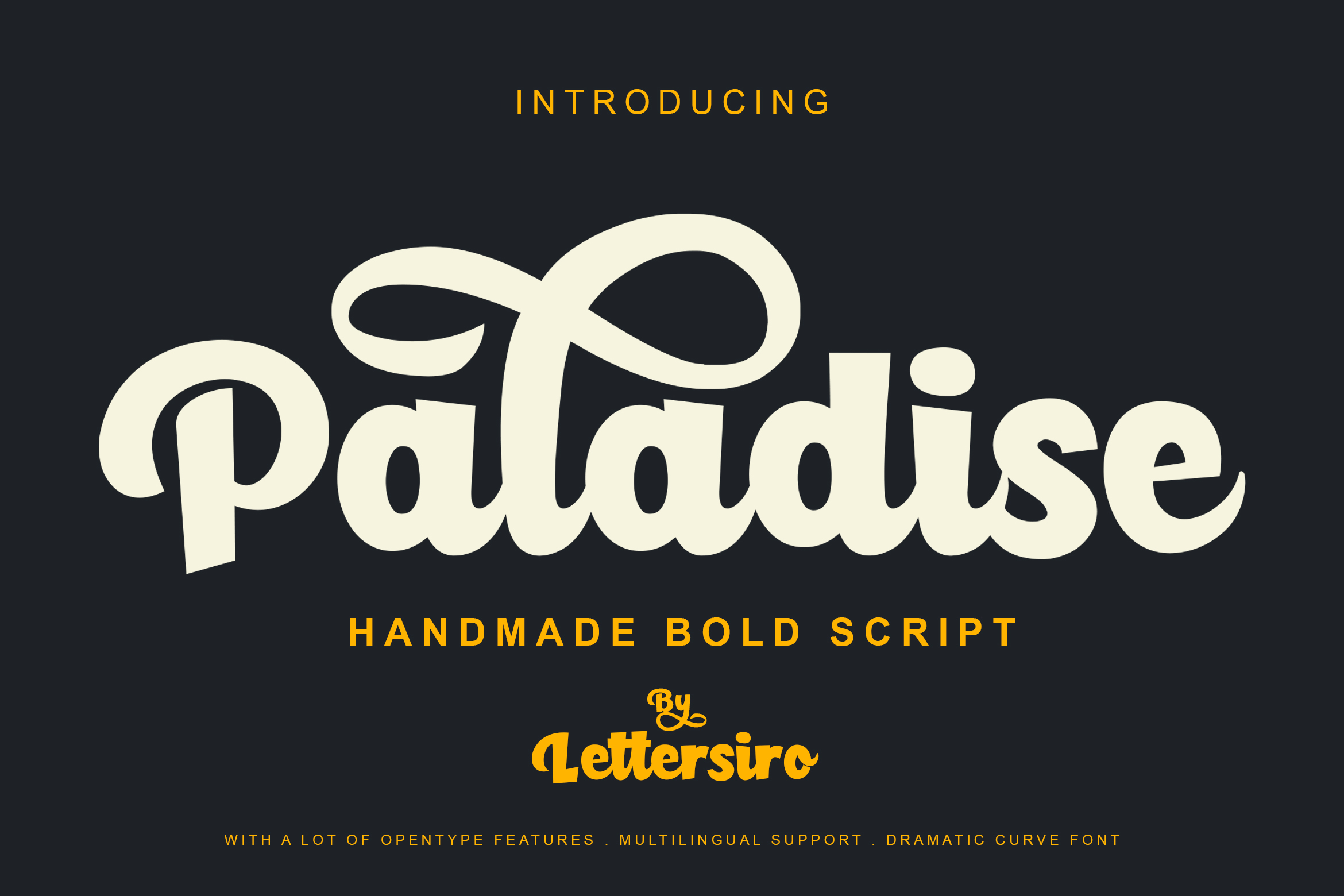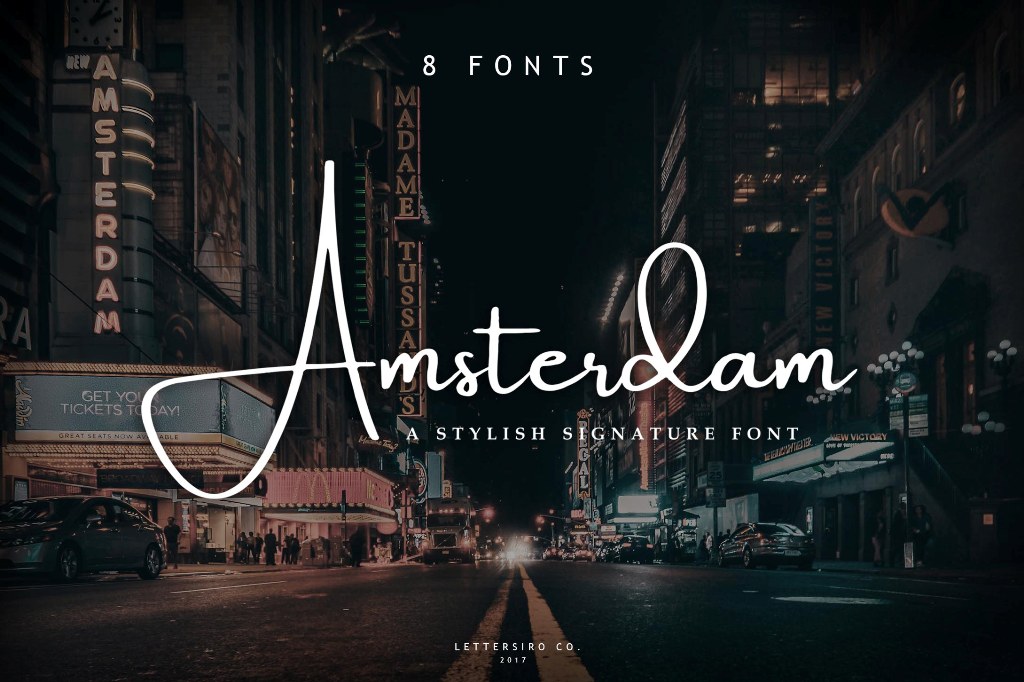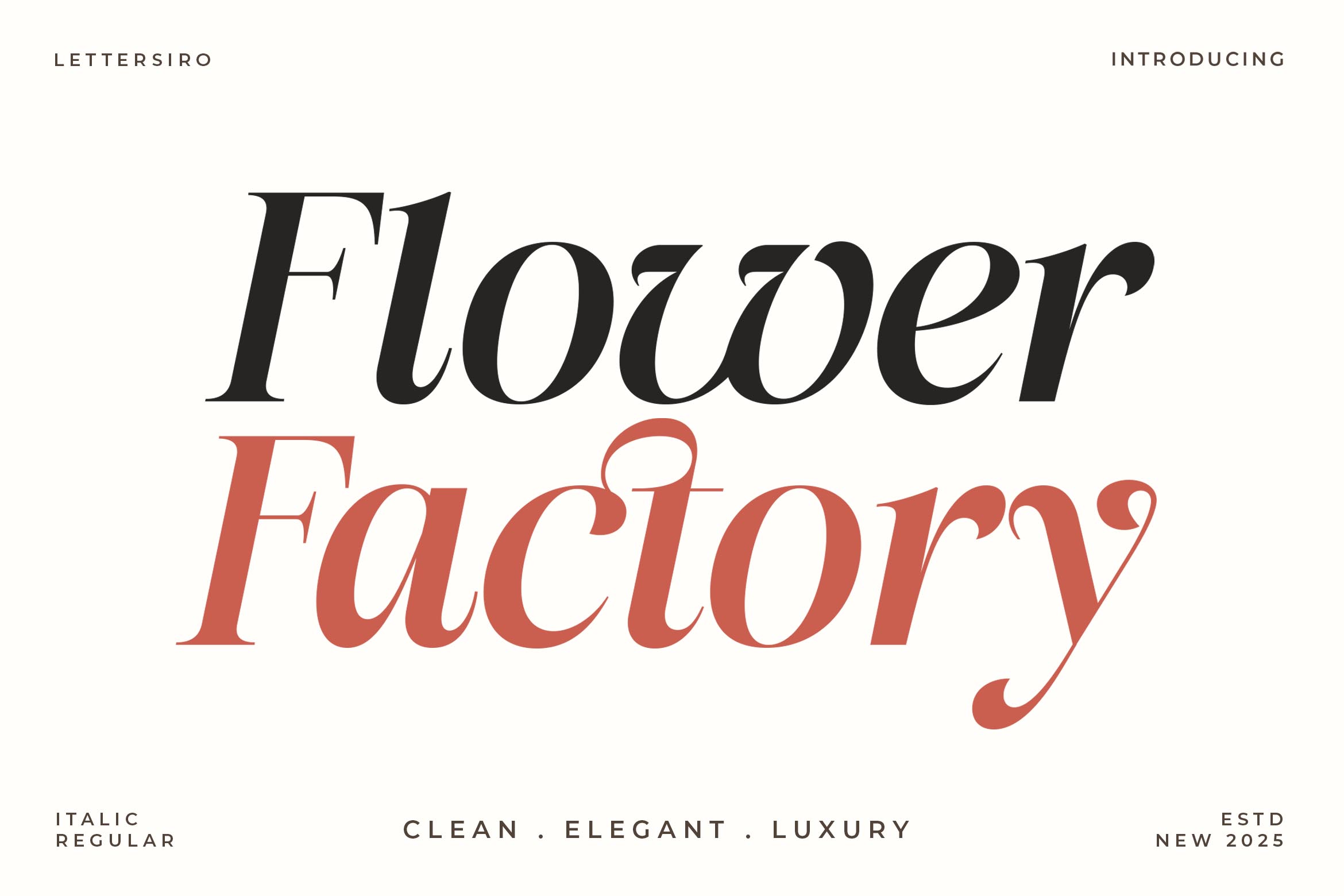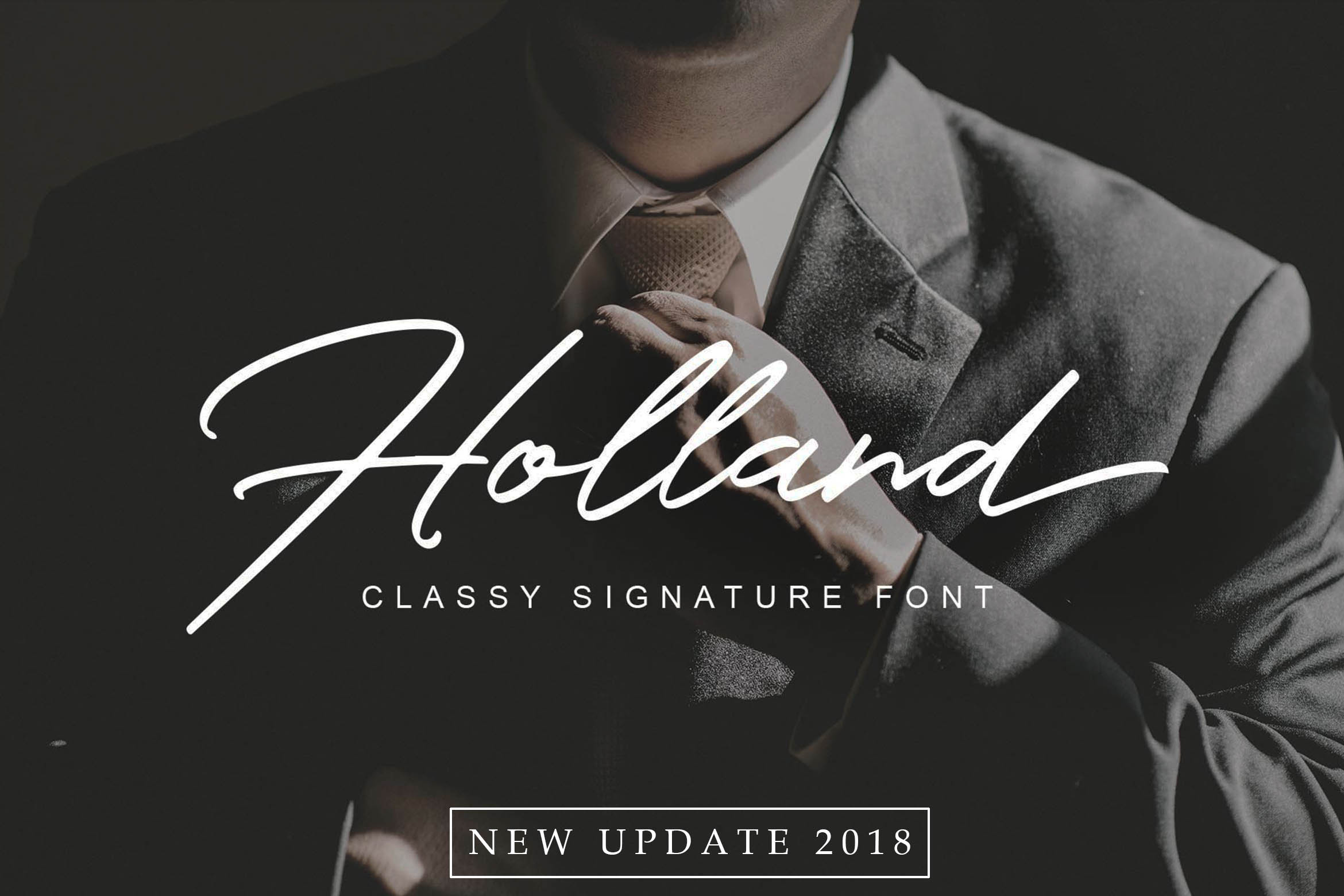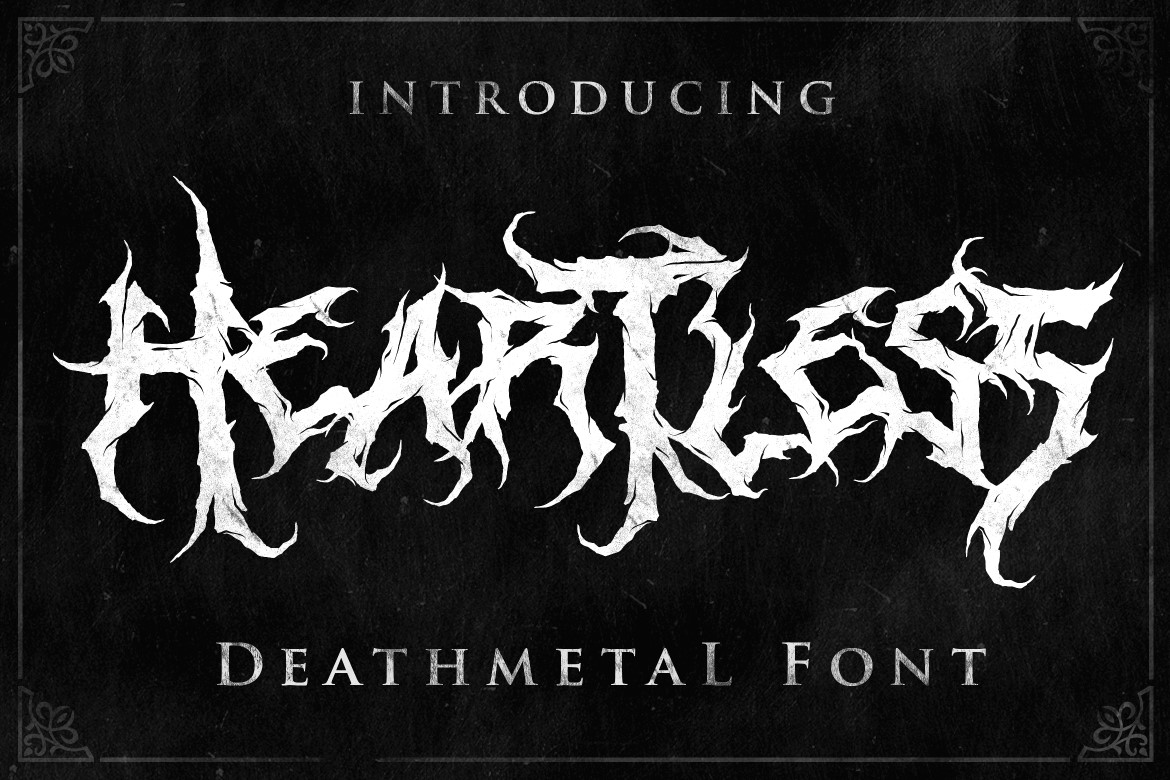
10 Best Fonts for Logo Design This Year
In logo design, the font you choose is more than a typeface—it’s your brand’s voice. Whether you’re creating a chic signature, a powerful streetwear vibe, or a brutal black metal mark, the right font will help your logo stand out and connect with your audience.
We’ve curated a list of the top 10 fonts that shine in 2025—across different styles and industries. From feminine elegance to dark aggression, here’s your go-to list:
10. Flower Factory
An elegant serif designed for feminine brands, Flower Factory offers a delicate and classy tone, perfect for modern beauty, skincare, and fashion logos. Its high contrast and gentle curves make it ideal for minimalistic and stylish branding.
9. Angelic Heart
Luxury meets softness in Angelic Heart. This serif font balances classic elegance with modern refinement. Ideal for beauty logos, perfume brands, and high-end boutiques that need a logo with a sense of grace and premium quality.
8. Heartless
One of the most used black metal fonts for logos. Heartless combines intricate textures, brutal spikes, and sharp geometry. It screams darkness while maintaining surprising legibility—making it a go-to for extreme metal bands and horror-inspired branding.
7. Black Street
A bold script font with natural brush strokes, perfect for apparel and streetwear logos. Black Street brings an authentic and gritty feel, especially useful for skate brands, fashion tags, and bold merchandise.
6. Paladise
Paladise is a bold retro script that radiates warmth and friendliness. Its chunky curves and strong presence make it perfect for food branding—think burger joints, ice cream parlors, and snack packaging with a retro twist.
5. Holland
Used by over 100,000 designers worldwide, Holland is a simple yet elegant signature font that feels modern and luxurious. Its flowing strokes make it ideal for coaches, personal brands, influencers, and high-end professionals seeking sophistication in their logo.
4. Midnight Grave
Midnight Grave is brutal yet readable—a rare combo in the black metal world. It brings chaos and artistry into harmony, making it ideal for metal bands, horror movie posters, and Halloween-inspired brand projects.
3. Alvin
Bold, modern, and versatile, Alvin is a sans serif font that’s perfect for startups, tech companies, apps, and digital products. Its clean geometry gives it a futuristic vibe while staying sharp and professional.
2. Amsterdam
The most wanted signature font on Canva, and best-seller on multiple marketplaces. Amsterdam comes with 8 styles, giving logo designers flexibility for branding that needs a luxurious, hand-crafted, and modern feel. Used by influencers, entrepreneurs, and logo studios worldwide.
1. Hunters
A premium bold script font trusted by many big companies in campaigns, commercials, and major branding projects. Hunters delivers energy, confidence, and punch. It’s your top pick when you want your logo to dominate.
How to Choose the Right Font for Your Logo
Here are quick tips to select the perfect logo font based on your industry and style:
Industry/StyleRecommended Fonts
Luxury / BeautyAngelic Heart, Flower Factory, Amsterdam
Food / RetroPaladise, Black Street
Streetwear / FashionBlack Street, Holland
Tech / DigitalAlvin
Metal / HorrorHeartless, Midnight Grave
Bold BrandingHunters, Black Street
Why These Fonts Work in 2025
In a year where authenticity, clarity, and style dominate branding trends, fonts must:
• Be legible at various sizes (from icons to billboards)
• Work across digital and print formats
• Convey strong emotion or uniqueness
• Support global branding with multi-language capability
• Be bold and expressive—or clean and versatile
Each font in this list excels in at least one of those areas—many in multiple.
Conclusion
Fonts are the cornerstone of effective logo design. A well-chosen font defines your tone, personality, and trustworthiness. Whether you’re starting a new brand or refreshing an old one, these 10 fonts will give you the creative edge.